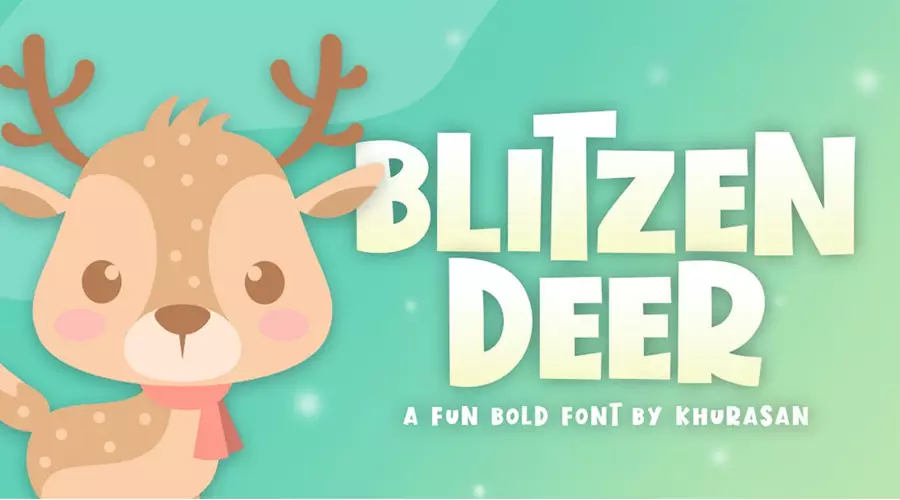
BoldenVan
Alexatype foundry creates various cool fonts. Bolden van is one of the amazing fonts they made. The font has a childish vibe in it. The tight and chubby feel of this font gets pumped with the rounded corners.
Spot
It is a clean and simple typeface. However, the font has modern styling and uniqueness that enables it as a right fit for the headline texts, highlight texts, or any other design that needs to capture attention with a plain typeface.
The Lied Font
The Lied font is a retro typeface in the line. Don’t get away with that. This font is in bold design and comes with extra glyphs. Additionally, it is available in both true type and open type including the web font formats. If you’re looking for a typeface to light up your kids this one fits.
Colombo Sans Font
It is a brand new sans serif font. Even though the font is roundish yet readable. The font fits in the display to give an easy read to the views, also suitable for cards, designs, and any design based projects.
Cheddar Gothic Font Family
A detailed aesthetic font. It comes in 8 different style packs including italics and stencil. All the other fonts in the line couldn’t stand at near the ratio of this font. The full family package offers both uppercase and lowercase that enables the designers to make the most out of this font to shine up their projects.
Blitzen Deer
The Blitzen Deer is a cute font. The dummy logo along with the font makes it more adorable. It is a fun bold font designed by Khurasan. You can easily use this font for stickers, chats, and many more.
Rono
Designed by JC Design Studio, this new italic font has 2 weights: Black and Italic. The font is extra thick and bubbled up round in its look. The full pack has all the uppercase and lowercase letters.
Thicket Typeface
Out of the pack this sans-serif font will give you normal spacing and large sizes. Also, extra glyphs and uppercase letters along with different versions of symbols as well.
Cinder Heart
Even though this font looks like a horror titles’ font, don’t quick judge it. It is what you are looking for. This solid letter font has sans holes in A,D,Q, etc which creates a strong personality. Also you’ll get the alternates. However, with large scale use the roughness and blockiness of the font becomes more evident.
Prospekt Typeface
Prospekt typeface is a big bold sans-serif typeface. Ideal for using it on headlines or any place where you need to highlight something. It comes in a regular and rocky style. Along with uppercase letters it does have the multi lingual support.
Crasus
Looking for an innovative, fresh, and very professional design? Look no further than the Crasus! This pick is perfect for creating flyers, websites, and posters. It has innovative lines and rounded edges that make a point. Plus, it’s very easy to use- so your work will stand out!
Brodaers Font Family
Brodaers font family is the right choice for slogan, group flyers, and posters. The font has smooth flexibility and good fit with any project. This display sans serif comes in four styles: regular, oblique, rough, and round. This is a very cool font in the thick and heavy fonts line.
Boldi Buddy
It is a cartoon font only in uppercase letters. The fun and playful look of this font is everything. It catches the viewers with an innocent attention though the optimized thick levels, and tiny edges.
Mixan
Mixan is a flat rounded color font. It could be classified as a sans-serif font. To awe your audience you can use this font. Also, you can use this font to get a new stylish look. Specially made for online chats and fun.
Blogh
Such a fat and quirky display font it is. Blogh font is a heavy-weight letterform that instantly adds personality and attitude to any text. This versatile typeface is perfect for headlines, apparel projects, store signages, and brand initiatives. With its chunky style, blogh font is perfect for adding a bit of edge to your text.
Hit and Run
Hit and run is a fun sans-serif font. It is clean and thick. The joyous and playful vibe of the font makes it an awesome choice for any designer. Because the font provides endless possibilities with designs.
Sleepy fat Cat
The name sounds as adorable as the font is. Have you ever seen any fluffy fat cat? If you have, then you know how cute they are. So does this font. From children’s design projects to any fun themed project sleepy fat cat is the one you need. The font comes with both uppercase and lowercase letters.
Mighty Mountain
Mighty Mountain is a hand-drawn font that comes with a bunch of interlocking and stacked characters. In programs that support Open Type features, Mighty Mountain can be used for logos, icons, and other graphical designs.